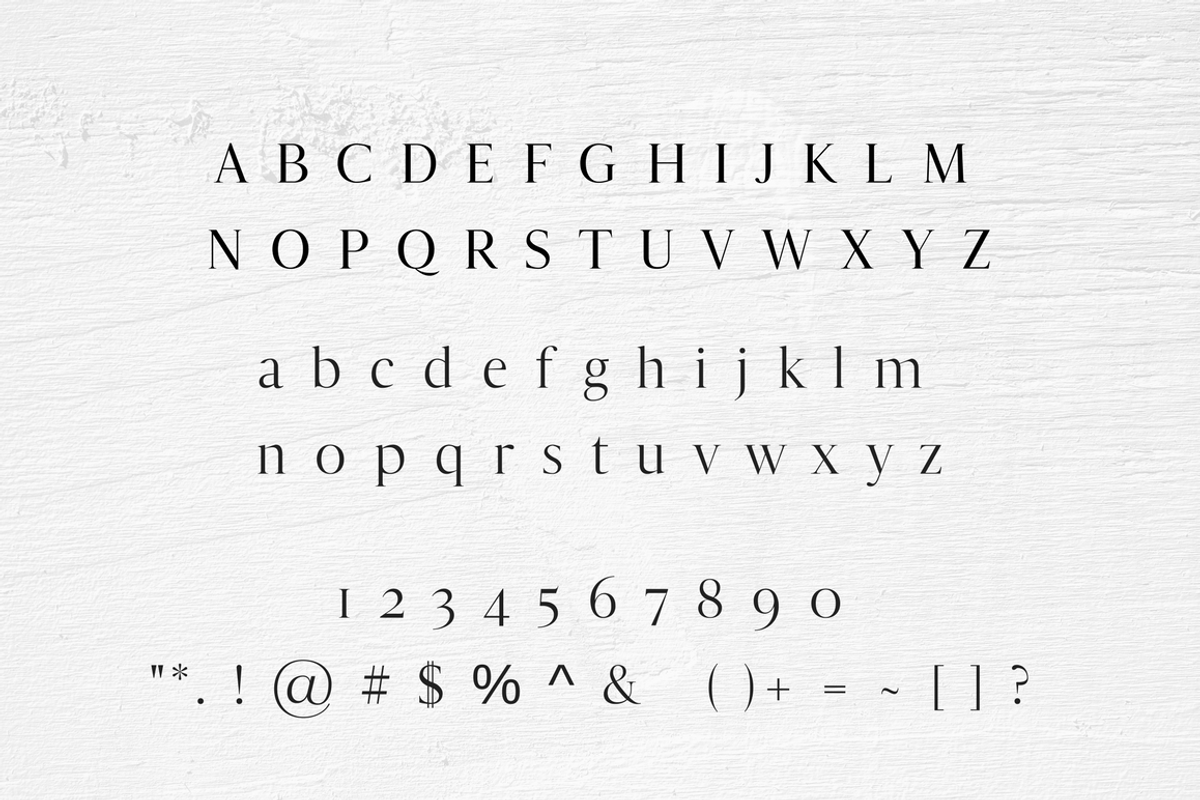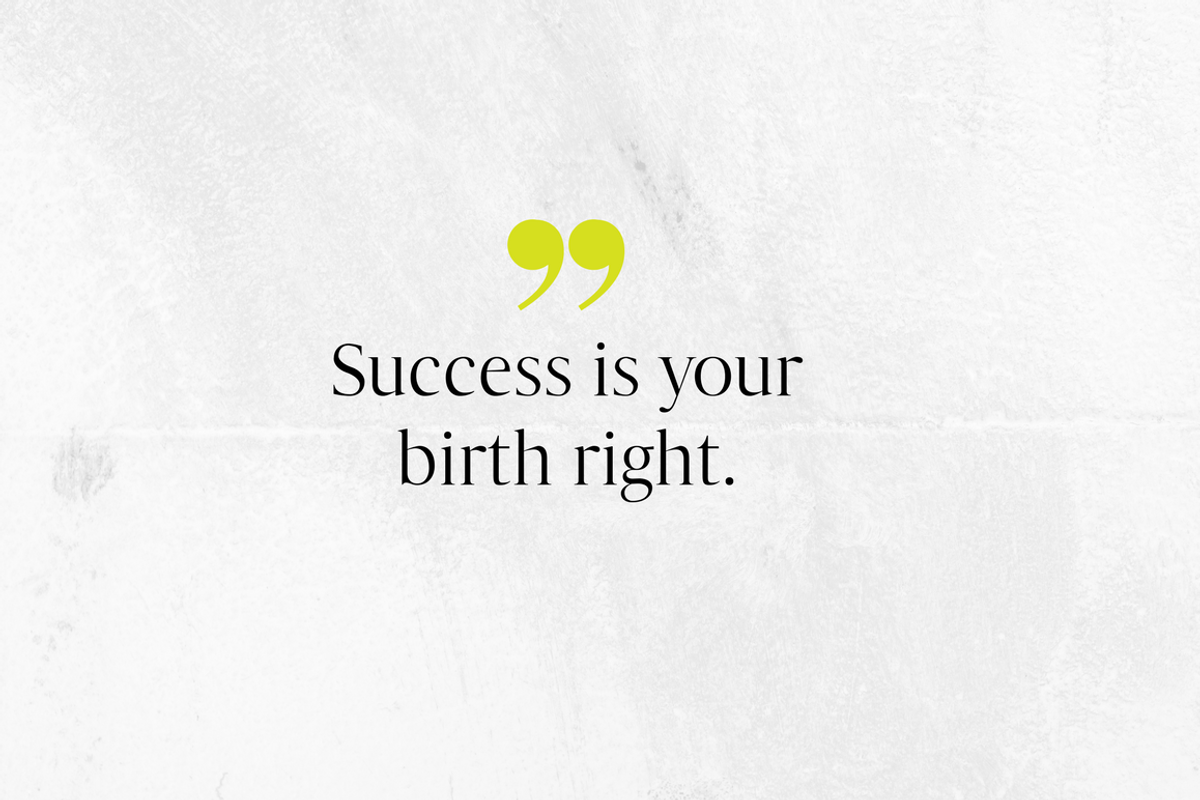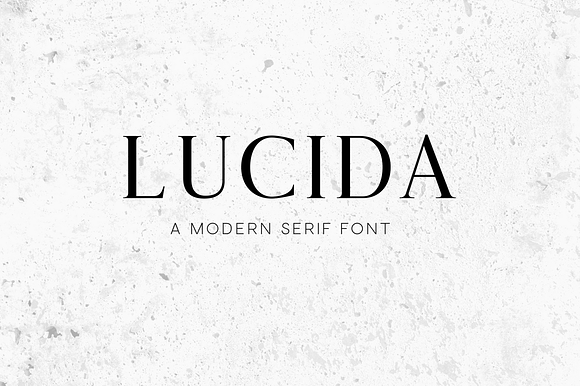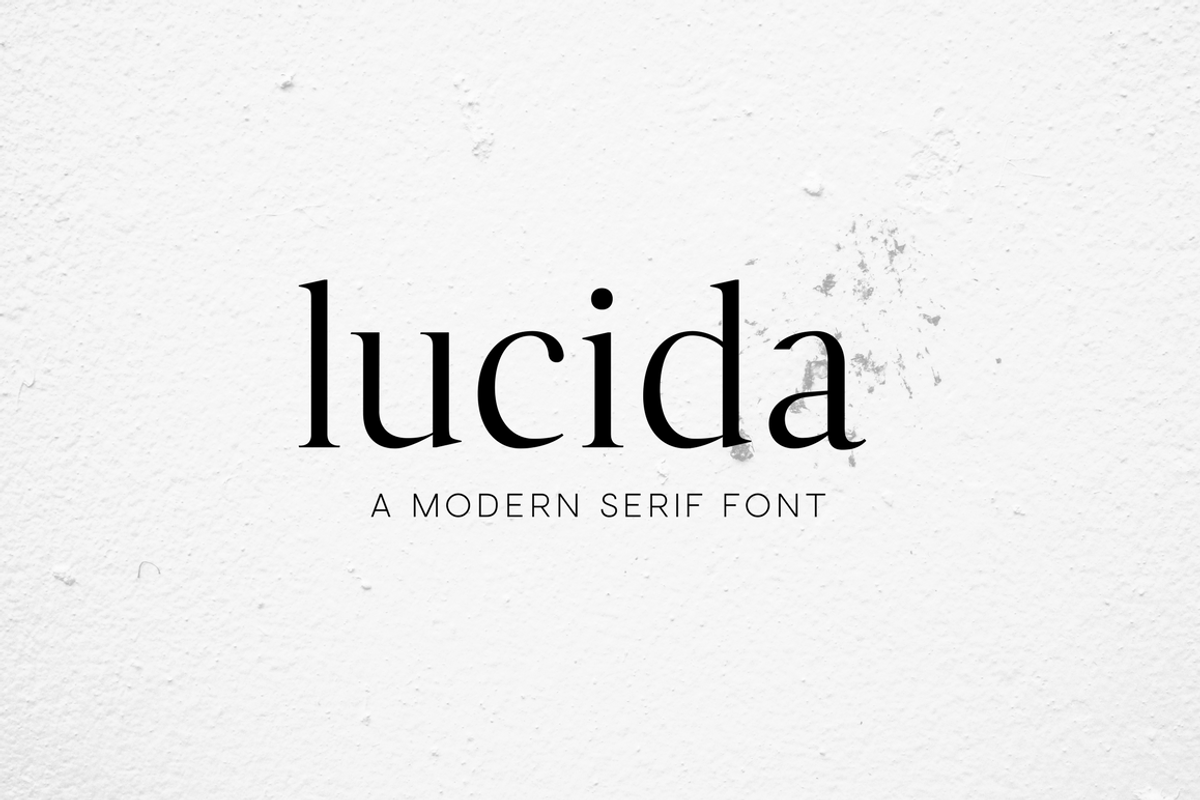
Lucida Modern Serif Font
Introducing Lucida - a fun serif font created by Black Dahlia Press.
Uppercase, lowercase, numerals + punctuation included.
Why Lucida Modern Serif Font is worth a look